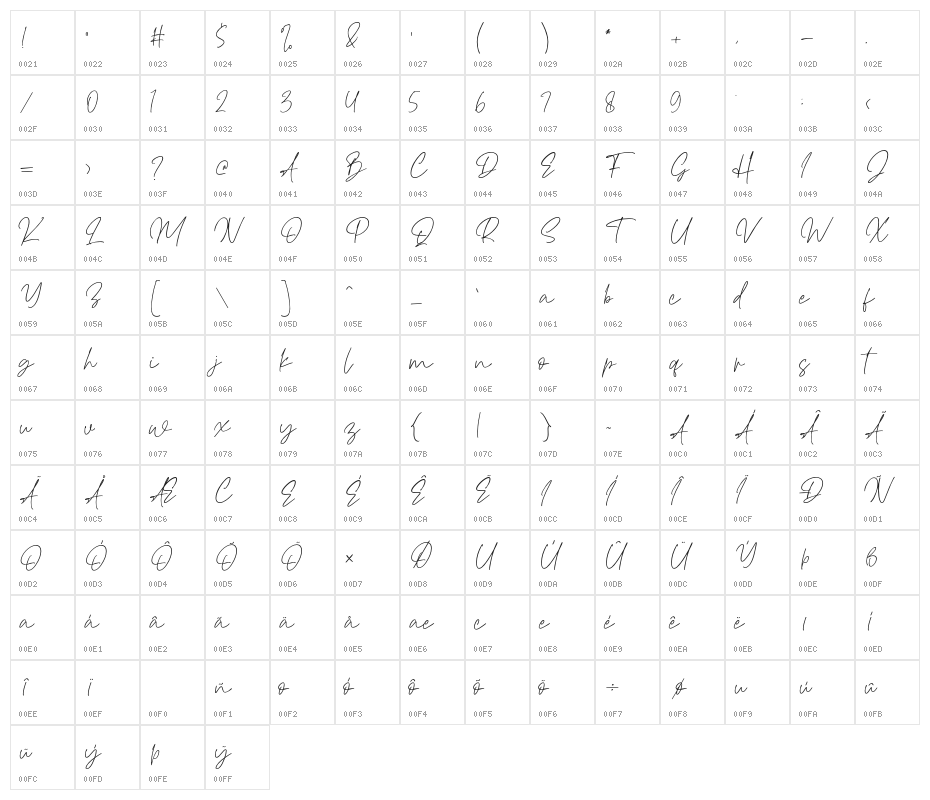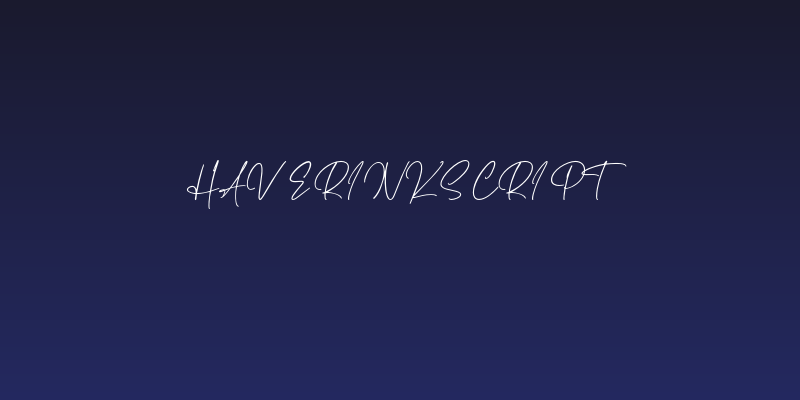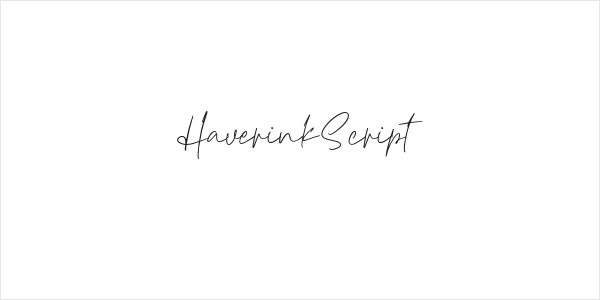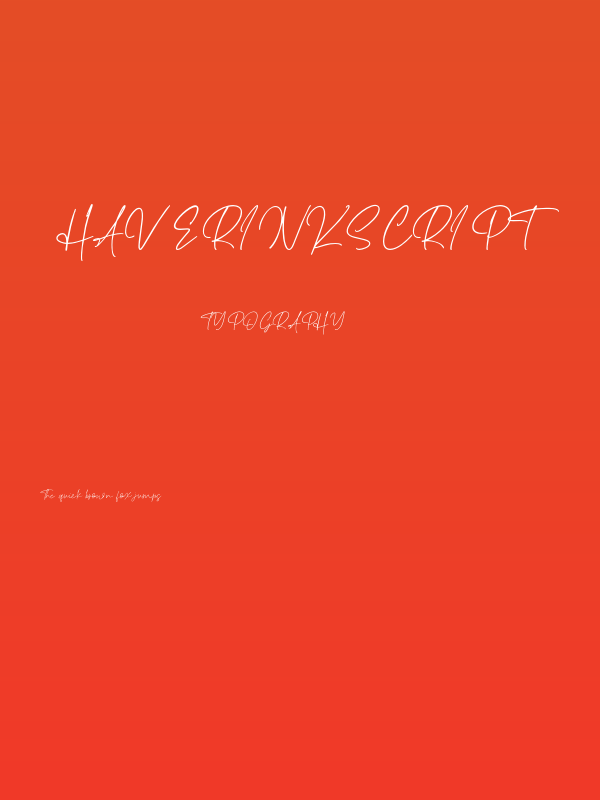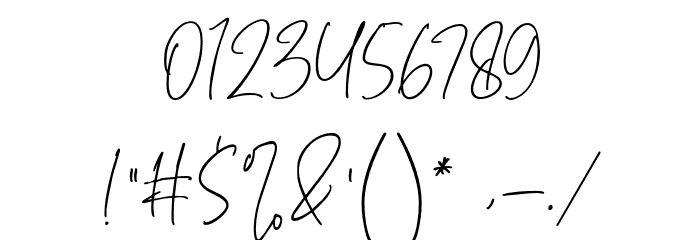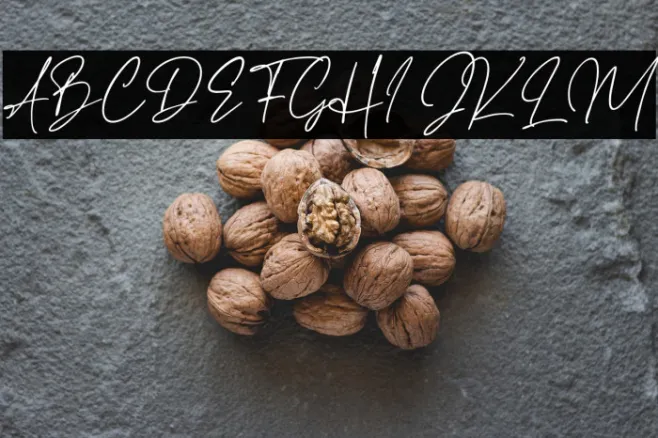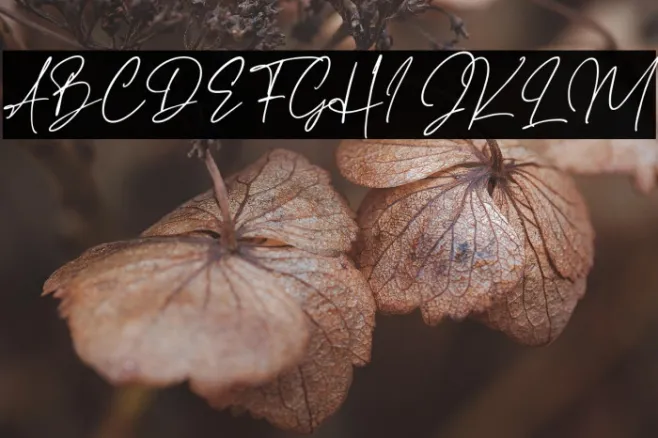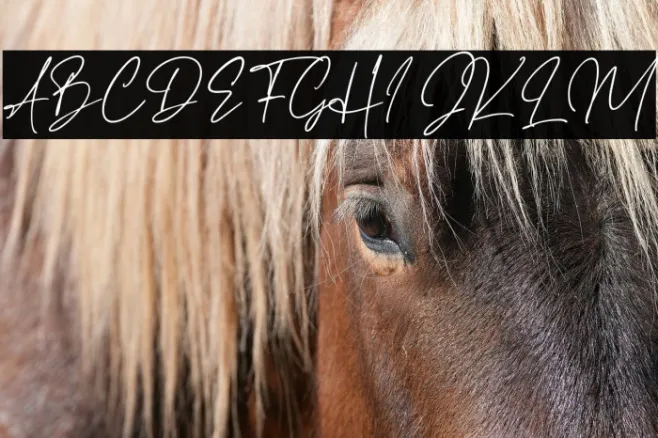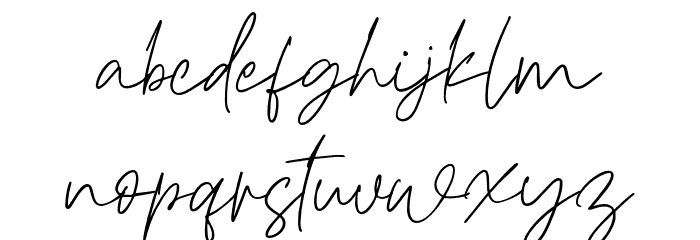
HaverinkScript Font
HaverinkScript Description
This elegant script font features a fluid and graceful style, characterized by its smooth, flowing lines and cursive letterforms. The uppercase letters are slightly more ornate, with sweeping curves and loops that add a touch of sophistication. The lowercase letters maintain a consistent rhythm, enhancing readability while retaining a stylish flair. The numerals and special characters are designed to complement the overall aesthetic, ensuring a cohesive look across all text elements. This font exudes a sense of elegance and refinement, making it suitable for a variety of creative applications.